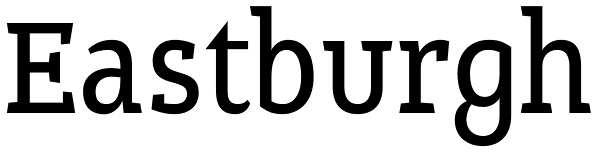
Eastburgh
Eastburgh is a bit upscale, but also a pragmatic character, as one who loves beautiful things. Good food but no frills. A good conversation with friends while enjoying a drink, the latter in moderation. Athletic as it is, it happily wears sturdy...
Eastburgh